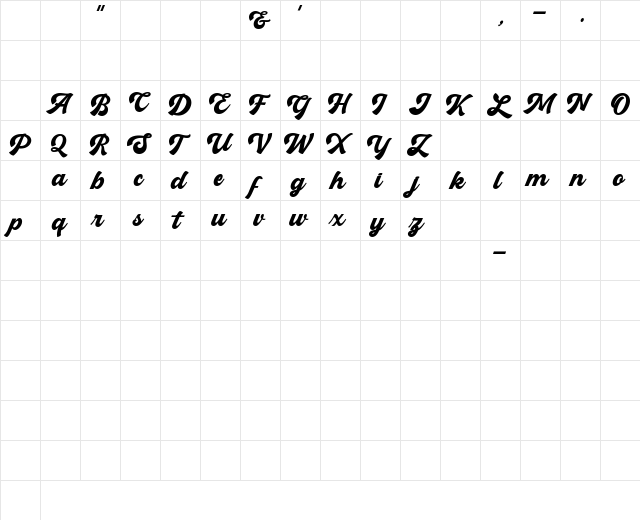
Complete Boldmatte Personal Use Only Regular glyph index. Displaying only characters natively supported by Boldmatte Personal Use Only Regular font.
Boldmatte Personal Use Only is a composed and adaptable typeface that performs quietly and consistently across a wide range of design contexts. Its bold stroke weight gives it real presence on the page.